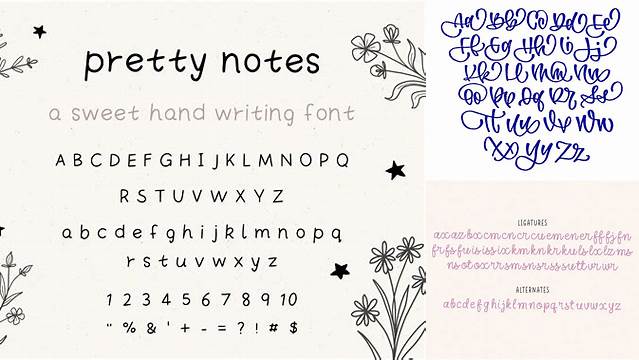
Adorable Handwriting Fonts: A To Z Guide
Hey guys! Ever felt that urge to ditch the standard, boring computer fonts and inject some personality into your projects? Well, you're in luck! Today, we're diving headfirst into the charming world of cute handwriting fonts, from A to Z! This guide is your ultimate resource for discovering the perfect fonts to add a touch of whimsy, warmth, and pure adorableness to everything from your personal notes and greeting cards to your website design and social media posts. Get ready to fall in love with letters all over again! We'll explore a variety of styles, from playful and bubbly to elegant and sophisticated, ensuring there's a font out there for every taste and project. So, grab your favorite drink, settle in, and let's embark on this fun-filled journey through the alphabet of adorable fonts!
H2: The Allure of Cute Handwriting Fonts
Why are cute handwriting fonts so incredibly appealing, you ask? Well, the answer is multifaceted, guys! First off, they offer a refreshing break from the often sterile and impersonal feel of standard computer fonts. They inject a sense of authenticity and human touch that instantly grabs attention. Think about it – when you see a handwritten note, doesn't it feel more special, more personal? These fonts replicate that feeling, making your message more engaging and memorable. Then there's the emotional aspect. These fonts often evoke feelings of joy, nostalgia, and creativity. They remind us of simpler times, of childhood scribbles and the joy of writing with a pen. They can also inject a sense of playfulness and fun into your work, making it more approachable and friendly. In a world saturated with digital content, cute handwriting fonts stand out. They offer a unique visual aesthetic that can help you differentiate your brand or project from the competition. They’re perfect for a range of applications, from designing logos and creating social media graphics to crafting wedding invitations and personalizing your blog. They have the power to transform the ordinary into something extraordinary, making your message more impactful and leaving a lasting impression on your audience. Plus, they're simply fun to use! Experimenting with different styles and creating unique designs is a creative outlet that can bring joy and satisfaction. They allow you to express your personality and creativity in a visually appealing way.
Beyond the emotional appeal, these fonts are also incredibly versatile. They can be adapted to suit various design needs, depending on the style chosen. From bubbly and cartoonish for kids' projects to elegant and refined for sophisticated designs, there's a font that can suit any requirement. They pair well with various design elements, colors, and backgrounds, offering flexibility and creative freedom. They can also be used to create a cohesive brand identity, adding a personal touch to your marketing materials. The ability to choose from a wide array of fonts allows you to create visually distinct designs that capture your desired audience. Furthermore, they can be incredibly effective in conveying complex information in an engaging manner. They can be used to create infographics, presentations, and other visual aids that are visually appealing and memorable. They can also be useful for highlighting important information or emphasizing key points. With the right font, you can make your message stand out and capture your audience's attention effectively. So, whether you’re a designer, a blogger, a business owner, or just someone who loves to create, incorporating cute handwriting fonts into your projects can be a game-changer. It’s a simple yet effective way to add a touch of personality, creativity, and charm to your work, making it more engaging, memorable, and impactful.
H2: Choosing the Right Cute Handwriting Fonts for Your Project
Alright, so you're excited about using cute handwriting fonts, but where do you even start, right? Choosing the right font can be tricky, but don't worry, I got you! The first thing to consider is the overall tone and style of your project. Are you going for a playful and whimsical look, or something more elegant and sophisticated? A bubbly, cartoonish font might be perfect for a children's birthday invitation, while a more refined script could be ideal for wedding stationery. Then, think about readability. While these fonts are fun, you want your text to be easy to read. Avoid fonts that are overly stylized or difficult to decipher, especially for large blocks of text. Test the font with your content to ensure it's legible at the size you intend to use it. Next up: consider the context. Where will you be using the font? Is it for a website, social media graphics, print materials, or something else? Different platforms and mediums may have specific requirements or limitations regarding font usage. Make sure the font you choose is compatible with the platform or software you’re using. Think about character support too. Does the font include all the characters and symbols you need, like numbers, punctuation marks, and special characters? If you’re writing in a language other than English, make sure the font supports the necessary characters. Another key aspect is the font's personality. Does it align with the overall brand identity or the message you're trying to convey? The font should complement your content, not distract from it. Consider how the font makes you feel, and whether it evokes the desired emotions in your audience. The size and weight of the font also matter. Adjust the font size and weight to make sure it's visually appealing and readable. Use bold or italic styles sparingly, to emphasize key points or add visual interest. Finally, don't be afraid to experiment. Try out a few different fonts and see which ones work best for your project. Download free trials or use online font preview tools to test different options. Get feedback from others on which fonts they find most appealing and easy to read. Finding the perfect font is a process, so be patient and have fun with it!
H3: Cute Handwriting Fonts for Personal Notes
Let's talk about personal notes, guys! Cute handwriting fonts can transform a simple note into a cherished keepsake. Imagine the joy of receiving a handwritten card with a beautifully crafted font – it's so much more personal and heartfelt than a generic printed message. For personal notes, choose fonts that reflect your personality and the tone of your message. If you're writing to a friend, a playful and whimsical font might be perfect. For a thank-you note, a more elegant and refined script could convey your appreciation beautifully. When selecting a font for personal notes, readability is key. You want the recipient to easily understand your message. Avoid overly complex or stylized fonts that might be difficult to read. Test the font with your content to ensure it is clear and legible at the size you intend to use. Consider the context of the note. Is it a birthday card, a thank-you note, a letter, or something else? The occasion should inform your font choice. A playful font might be ideal for a birthday card, while a more elegant font might suit a thank-you note. Think about the color scheme and design elements you plan to use. The font should complement the overall design of the note, not clash with it. You can use different font colors to make your note more visually appealing and highlight key points. Many online resources and software programs offer a vast array of fonts for personal notes. Explore these options and find fonts that resonate with you. Download free trials or use online font preview tools to experiment with different fonts. Also, think about the type of paper and stationery you're using. The font should complement the paper's texture and color. Use a font that is easy to read on the type of paper you've chosen. Remember, the goal is to create a personal and heartfelt message that the recipient will cherish. Your font choice should reflect your sincerity and add a touch of charm to your message. Experiment with different fonts and designs to find the perfect one for your needs.
H3: Adorable Fonts for Invitations and Greeting Cards
Let's make invitations and greeting cards extra special, shall we? Cute handwriting fonts can elevate these items from ordinary to extraordinary! They create an immediate impression, setting the tone for your event or message. For invitations and greeting cards, it's vital to choose fonts that match the event or message. A whimsical font is perfect for a children's birthday invitation, whereas a more sophisticated script suits a wedding invitation. When designing invitations and greeting cards, readability is paramount. The recipient should easily read the essential information such as date, time, and location. Avoid overly complex or ornate fonts that could be hard to decipher. Test the font with the relevant information to guarantee it's clear and legible. Consider the design of your card. The font should complement the design elements, such as images, colors, and decorations. Use different font colors to highlight important information. You might choose a font that mirrors your overall theme. A beach-themed invitation might utilize a font reminiscent of seashells. A font that complements the imagery can heighten the invitation's impact and make it more memorable. Explore various fonts available online, including those tailored for invitations and greeting cards. Download free trials or use online tools to experiment with various styles. If you're creating a themed card, find a font that complements that theme. Look for fonts that capture the essence of the occasion. Remember, your font choice is just one component of an attractive design. It is, however, an important one! It's a great way to convey the mood of your event. The goal is to make the invitation or greeting card memorable. Take your time choosing a font that best suits your project's requirements. The right font will create a lasting impression on the recipient, making your message all the more special.
H3: Charming Fonts for Websites and Blogs
Okay, let's get digital, guys! Cute handwriting fonts can bring a breath of fresh air to websites and blogs, adding a unique visual appeal that makes your content stand out. They create a sense of warmth and personality, making your site feel more approachable and inviting. However, when using these fonts on the web, you have to be mindful of readability. The chosen font must be easily legible on various screen sizes and devices. Test your font choice on different devices to ensure readability. Consider the purpose of your website or blog. A playful, whimsical font might be suitable for a children's blog or a craft website. A more elegant and refined script could work well for a fashion blog or a personal website. Choose a font that complements your content. It should support your brand identity and message. Ensure that the font you choose is compatible with web browsers and design platforms. Some fonts are better suited for web use than others. Look for fonts that are optimized for web viewing. There are numerous online resources that offer cute handwriting fonts for your website or blog. Explore these options, and preview them to see how they look on your site. Most web design platforms allow you to integrate custom fonts easily. Familiarize yourself with your chosen platform’s font integration process. Take into account the overall design and visual style of your website. The font should complement the other design elements, such as images, colors, and layout. The size and weight of the font also play a role in readability. Use a suitable font size and weight to ensure that your text is easy to read. Overuse of these fonts can be distracting. Use them strategically for headings, subheadings, or specific design elements, rather than for large blocks of text. Consider the impact on user experience. The right font can enhance the user experience by making your content more engaging and enjoyable to read. A well-chosen font can convey a brand's personality, making it more memorable. Experiment with different fonts and preview them on your site to see how they look and if they reflect the overall style of your content. Ultimately, a well-chosen font can transform a website or blog, making it more unique and user-friendly.
H2: Popular Styles of Cute Handwriting Fonts
Let's explore some popular styles of cute handwriting fonts, shall we? Knowing the different styles will help you choose the perfect font for your project! There's a wide range of options to match your style. First up, we have the bubbly and playful fonts. These are characterized by their round, cheerful shapes and often include exaggerated curves. They're perfect for kids' projects, birthday cards, or anything that needs a fun and lighthearted touch. Next, we have script fonts, which mimic elegant handwriting styles. They can range from delicate and refined to bold and expressive. These fonts are ideal for invitations, wedding stationery, and any design where you want to add a touch of sophistication. Sans-serif fonts often include casual, handwritten-style features. This style combines the clarity of a sans-serif font with the warmth of handwriting. Doodle fonts often include hand-drawn elements such as little hearts, stars, or swirls to add a whimsical touch. They're ideal for adding some personality to your design. There are also calligraphy fonts, which are inspired by the art of beautiful writing. These fonts typically feature flowing strokes, elegant curves, and a sense of artistry. They can be ideal for wedding invitations, special announcements, and other formal designs. Brush fonts are designed to mimic the strokes of a brush, creating a bold and expressive look. They are suitable for adding a dynamic and artistic feel. They're great for quotes, logos, and headlines. Understanding these styles will help you find the perfect font to use! Each style has its own unique characteristics, and it's crucial to think about how these features will interact with your design.
H3: Bubbly and Playful Fonts: The Joyful Choice
Bubbly and playful fonts are all about spreading joy and fun! These fonts are perfect for projects aimed at children or anyone looking to add a touch of cheerfulness. Their characteristics include round, cheerful shapes and exaggerated curves, making them instantly likable. For your designs, you can explore a wide range of options. This font style is exceptionally versatile. It's perfect for creating a positive and enjoyable design. They're fantastic for kids' parties, birthday cards, and any project that calls for a sense of fun. You can also find them incorporated into logos for brands targeting a younger audience. The fonts are often used for posters, flyers, and social media posts. Their inherent flexibility also allows for some versatility. They pair beautifully with bright colors and playful illustrations, making them an ideal choice for creating visually appealing designs. When choosing a bubbly and playful font, consider its readability. Ensure that the characters are easily distinguishable, particularly at smaller sizes. Also, take into account the overall design of your project. The font should complement your visual elements. Test the font on your chosen platform and on the devices your target audience will use. You can use it for headings, titles, or short phrases to add emphasis. For larger blocks of text, choose a complementary font. The use of bubbly and playful fonts is a powerful tool. They have the ability to create a positive and memorable design, making them an invaluable asset for your creative endeavors. In essence, they contribute to a delightful user experience, transforming ordinary projects into extraordinary ones.
H3: Elegant Script Fonts: Adding a Touch of Class
Want to add a touch of class to your designs? Elegant script fonts are your go-to choice! These fonts mimic beautiful, flowing handwriting styles, adding a sense of sophistication and grace. They range from delicate and refined to bold and expressive, offering options for all needs. Script fonts excel at conveying a sense of formality and sophistication. Their uses include wedding invitations, special announcements, and any design where you want to add a touch of elegance. Consider their readability. Though these fonts are beautiful, readability is crucial. Choose a font that is easy to read, even at smaller sizes. Test the font to confirm its legibility. The font should complement the overall design of your project. The script font should work with the other design elements. Use it strategically to highlight specific elements. You can use it for headings, titles, or decorative elements, rather than for large blocks of text. When using script fonts, consider the space between the letters and words. Proper spacing ensures the text is readable and visually appealing. You can combine your chosen font with a sans-serif font for the body text to improve clarity. Many online resources provide an extensive selection of elegant script fonts for your various design requirements. Experiment with different fonts to choose the best one for your project. Keep in mind that using an elegant script font is a powerful way to add elegance and style to your designs. These fonts instantly elevate the visual appeal of your project. Ultimately, they are a great way to leave a lasting impression.
H3: Handwritten Sans-Serif Fonts: Modern and Approachable
If you are after something modern and approachable, handwritten sans-serif fonts are the way to go! This style beautifully merges the clarity of sans-serif fonts with the warmth of handwriting. They offer a clean, readable appearance while maintaining a touch of personality. This makes them perfect for modern designs. These fonts are versatile and are often utilized for web design, branding materials, and marketing collateral. They are known for their easy readability, which is crucial in web design. They can be integrated into all parts of your design. They are also suitable for body text, headlines, and other design components. Use this style of font for a friendly and accessible aesthetic. When choosing a handwritten sans-serif font, think about the personality you wish to portray. The font should represent your brand's image. Also, test its readability on various devices and screen sizes to ensure it's easily legible for all users. Consider the overall design of your project, as this font style works well with a minimalist design. You can combine it with bold colors, simple graphics, and plenty of white space. They are a popular choice among designers. They bring a sense of professionalism and personalization to any project. The unique combination of readability and personality make them a go-to option for modern and approachable designs. They strike a balance between readability and visual appeal. Choosing these fonts can transform your designs and convey a modern aesthetic.
H3: Doodle Fonts: Adding Whimsy and Fun
Time to add some whimsy and fun! Doodle fonts are the perfect choice! These fonts often incorporate hand-drawn elements. Think little hearts, stars, or swirls, adding a playful touch. They are fantastic for adding a unique touch to your projects. Doodle fonts can be used for various design purposes. They are ideal for greeting cards, invitations, or anything requiring a unique feel. They often offer a handcrafted feel. The versatility means they can be used on a wide array of designs. When choosing a doodle font, consider its readability. Even though these fonts are unique, make sure they are still readable. Choose a font that complements your design. Consider the overall design of your project and how the doodle font will integrate with other elements. You can experiment with the font to find the right fit. You will also find an extensive variety of these fonts available. Test your font on different devices to ensure it displays correctly. The goal is to make your project more engaging. Doodle fonts offer a distinctive charm that can breathe life into any design. This font style is sure to make your work memorable and visually appealing. Whether you’re creating invitations, social media graphics, or any other project, these fonts will bring a touch of fun and creativity to your design.
H3: Calligraphy Fonts: The Art of Beautiful Writing
Ready to explore the art of beautiful writing? Calligraphy fonts are the way to go! These fonts are inspired by the art of elegant writing, featuring flowing strokes and artistic curves. They are ideal for adding an element of sophistication to your design. Calligraphy fonts convey a sense of artistry and elegance. You can use them for special events like weddings, or invitations. They are perfect for formal designs. When selecting a calligraphy font, it's important to prioritize readability. Though they are gorgeous, make sure they are legible. Test your chosen font on different backgrounds. Consider the overall design of your project, as the font should complement your design elements. You can also experiment with various fonts and see how they look. The fonts can be used to add a touch of class to anything. If you’re creating wedding invitations, stationery, or any other elegant project, they are an excellent choice. Calligraphy fonts create a lasting impression, and elevate the overall design of your project. It’s a great way to transform your design and convey a sense of artistry and elegance.
H3: Brush Fonts: Bold and Expressive Strokes
Let's get bold! Brush fonts are designed to emulate the strokes of a brush, creating a dynamic look. These fonts are a fantastic way to make your work stand out. They are very versatile and can be used for many design projects. They are the perfect choice for expressing creativity and boldness. These fonts are incredibly versatile, and are commonly utilized in logos, headlines, and other design elements. They are a great choice for adding a dynamic and artistic feel. When choosing a brush font, consider its readability, particularly at various sizes. Ensure that the characters are easily discernible. Ensure that the font complements your design. Use the font strategically for impact. The font can be the star of your project! Many online resources offer a variety of brush fonts to choose from. Always check the font on your design, as different fonts have different effects. The use of brush fonts is a strong method to draw attention to your project. Brush fonts are a perfect choice for adding a dynamic and artistic feel to your work. Whether you are creating a logo, headline, or any other design element, the use of brush fonts will ensure that your work stands out. The use of brush fonts is a great way to make your project memorable.
H2: Where to Find Cute Handwriting Fonts
Where do you find all these amazing cute handwriting fonts, you ask? Well, there are tons of resources out there! Let's dive in and explore some of the best places to find your new favorite fonts. Google Fonts is a fantastic place to start. It's a free and open-source font library that offers a wide variety of options, including several cute handwriting fonts. You can easily browse, download, and use these fonts for both personal and commercial projects. Then, we have DaFont, a popular website that hosts a massive collection of fonts. You can browse through thousands of options, including a dedicated section for handwritten fonts. Be sure to check the licensing terms before using the fonts. Font Squirrel is another great resource that offers high-quality, free fonts for commercial use. They have a curated selection of fonts, making it easy to find beautiful and functional options. For premium fonts, check out Creative Market. They have a vast marketplace offering a wide variety of fonts, including many adorable handwriting styles. Envato Elements is a subscription-based service that provides access to a massive library of design assets, including fonts. It's a great option if you need access to a wide range of fonts and other design resources. Remember to always check the licensing terms for each font to ensure you're using it legally. Some fonts are free for personal use only, while others offer commercial licenses. Be sure to understand the terms before you use any font in your project!
H3: Free Font Resources: Google Fonts and DaFont
Want free fonts, guys? You’re in luck! Google Fonts and DaFont are your go-to destinations for an incredible array of cute handwriting fonts, without breaking the bank. These platforms are loaded with options! Google Fonts is a fantastic resource. It offers a wide variety of fonts that are free and open-source. You can easily browse, download, and use these fonts for any project! DaFont is another popular website hosting a massive collection of fonts. It's a great place to discover all kinds of handwriting styles. Be sure to check the licensing before using them. Both websites are easy to navigate. You can filter your search to find fonts that suit your needs. When browsing, remember to check the license terms for each font. This will determine whether you can use it for personal or commercial purposes. These platforms provide an excellent starting point for finding cute handwriting fonts without spending a fortune. Both of these resources are reliable and offer a vast collection of options to fulfill your creative desires. They are a great starting point, offering many options for adding creativity to your projects.
H3: Premium Font Marketplaces: Creative Market and Envato Elements
Looking for more premium options? Creative Market and Envato Elements are your go-to choices for finding high-quality cute handwriting fonts! These marketplaces offer a curated collection of fonts, ensuring top-notch quality and a wide range of styles. Creative Market offers a vast marketplace with a wide array of fonts, including many adorable handwriting styles. Envato Elements provides access to a huge library of design assets, including fonts, through a subscription-based service. Both marketplaces provide user-friendly interfaces for browsing and finding fonts. The premium fonts provide you with professional design options and exceptional support. Before purchasing, review the font's features, compatibility, and license agreement. The choice between them depends on your needs. Creative Market offers individual font purchases. Envato Elements provides a subscription-based model, which is advantageous for regular font users. These premium marketplaces provide the best selection of creative options. By using Creative Market and Envato Elements, you can elevate your designs. They are a great way to create designs for personal or commercial projects.
H2: Practical Tips for Using Cute Handwriting Fonts
Alright, let's get practical, shall we? Using cute handwriting fonts effectively is key to creating visually appealing designs. Here are some practical tips to help you make the most of these charming fonts. Start by choosing the right font for the job. Make sure the font aligns with the project's overall theme and tone. Remember, readability is crucial. Ensure your chosen font is legible at the intended size. Avoid fonts that are difficult to read, especially for large blocks of text. Use these fonts strategically. Consider using them for headings, subheadings, or short phrases to add emphasis. Reserve them for specific design elements to avoid overusing them. The font size is important, too. Set a suitable font size, to ensure that your text is easy to read. The weight of the font plays an important role in readability. Experiment with different weights to find what looks best for your project. Make sure you combine the font with other fonts. It helps create a balanced and visually appealing design. It is important to test your font on different devices and platforms. This makes sure it displays correctly across all devices. Consider your color scheme. The font color should complement the other design elements. Also, ensure the font contrasts with the background. Explore different combinations to discover which ones create the most impact. Use spacing effectively. Properly spaced text is easier to read. Pay attention to the kerning, tracking, and line spacing to improve readability. Experiment and play! You can experiment with different combinations to add flair to your projects. Always be sure to consider legal aspects, and adhere to licensing rules. By following these practical tips, you can make the most of cute handwriting fonts in your designs! It is a great way to create unique and appealing designs.
H3: Readability and Legibility: The Golden Rules
Let's get serious for a sec, guys! Readability and legibility are the golden rules when using any font, especially cute handwriting fonts! You want your message to be clearly understood, right? Readability refers to how easy it is to read a block of text. Legibility, on the other hand, is about how easily individual letters can be distinguished. For readability, choose fonts that are designed to be read. Avoid fonts with overly ornate or complex letterforms. Opt for simpler, clearer styles for body text. Size and weight play a huge role. Choose a font size that is easy to read. Also, make sure the font weight is appropriate for the size and style. Spacing is also key. Make sure the characters and words are spaced correctly. Line spacing can also significantly affect readability. When it comes to legibility, pay attention to the individual letterforms. Characters should be easily distinguishable from each other. Avoid fonts where the